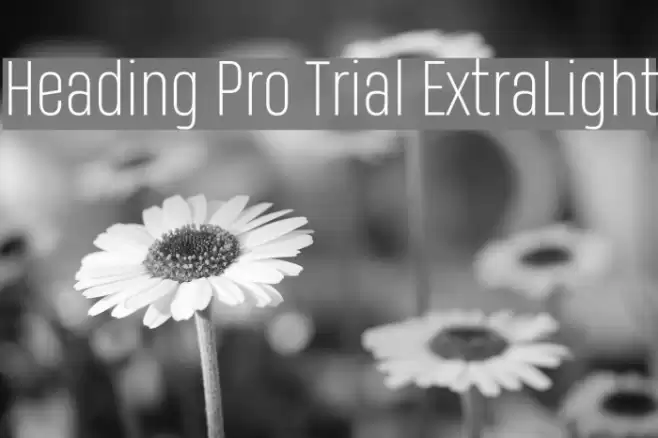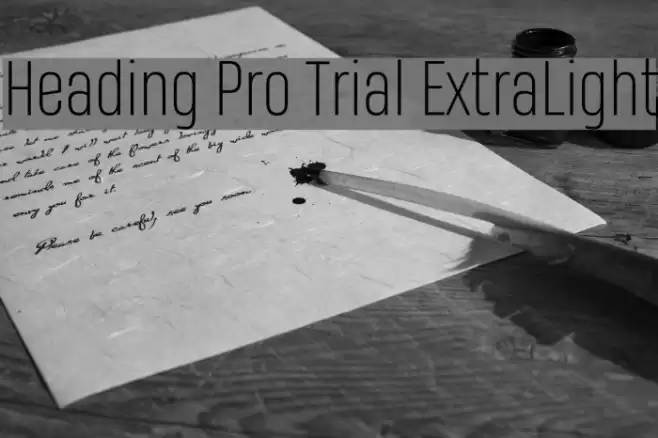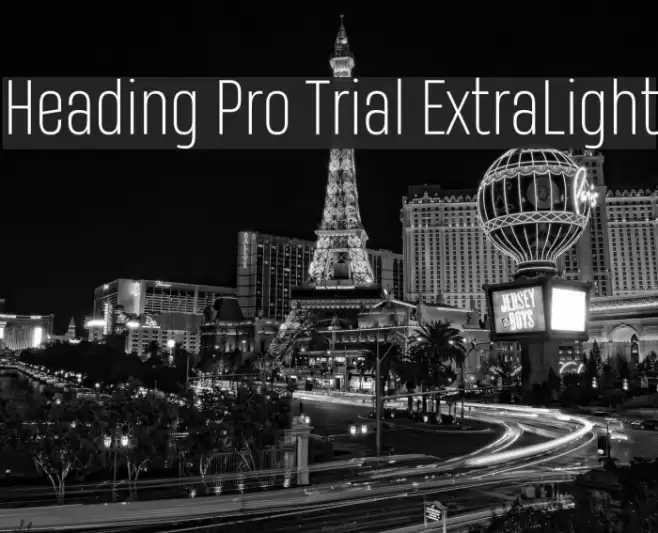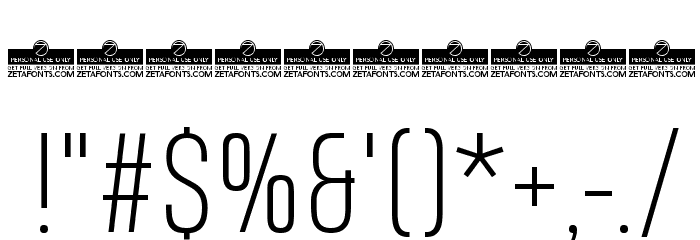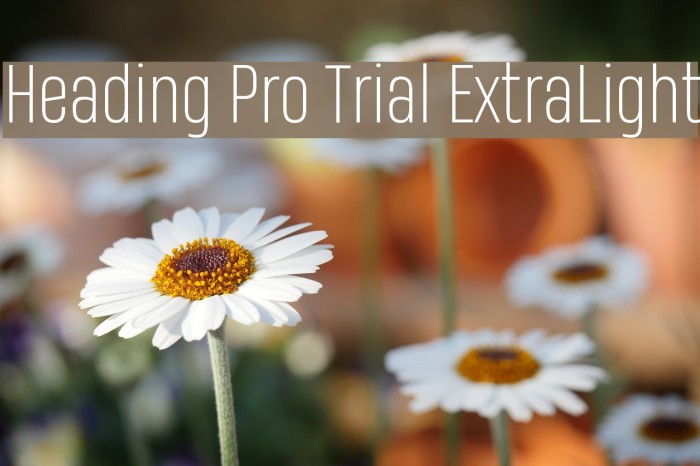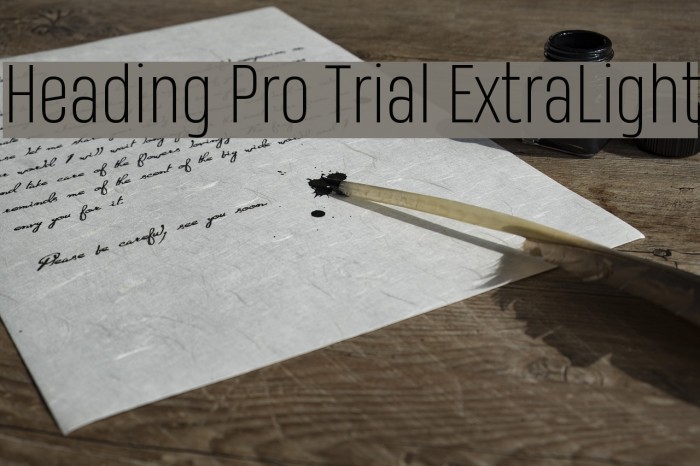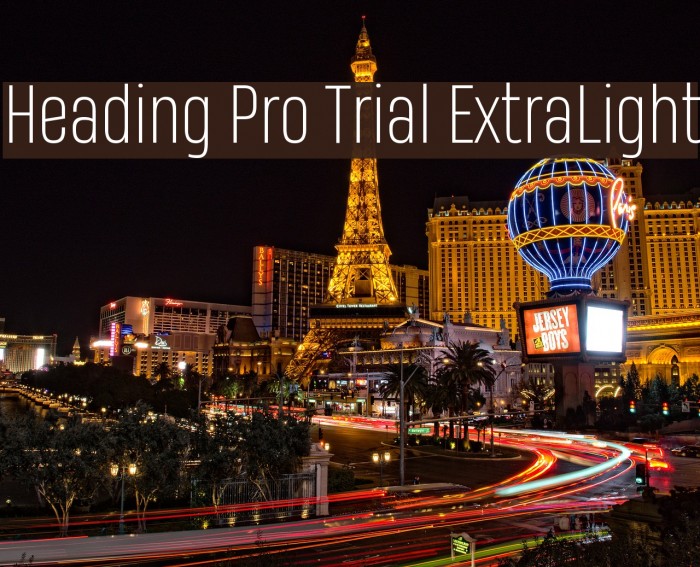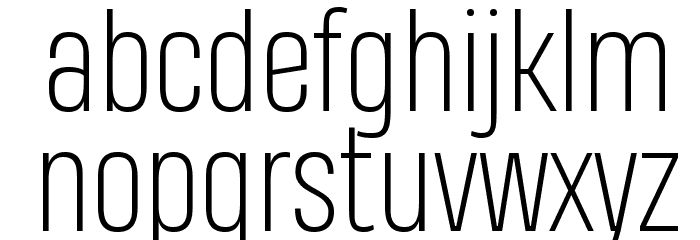
Heading Pro Trial ExtraLight Font
Heading Pro Trial ExtraLight Description
This font features a sleek, modern design with elongated letterforms and a minimalist aesthetic. The characters are tall and narrow, giving a sense of elegance and sophistication. The clean lines and uniform stroke width contribute to a contemporary look, making it suitable for a variety of design applications. The uppercase and lowercase letters maintain a consistent style, while the numerals and special characters complement the overall design. This font's simplicity and clarity make it highly legible, even at smaller sizes.
A modern, sleek font with elongated, narrow letterforms and a minimalist design from Uncategorized fonts.
- Proposed Projects: Ideal for branding, editorial design, advertising, and digital interfaces where a modern and clean look is desired.